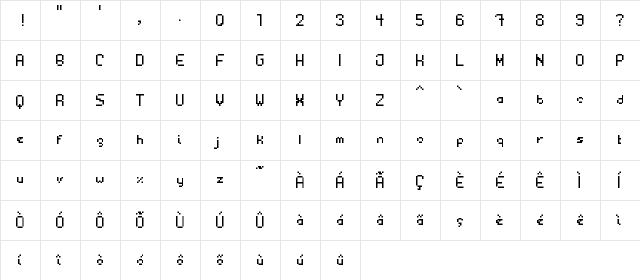
plastica Regular
| Designer | wandolas |
Design Context for plastica Typeface
plastica takes a measured approach to typography — its balanced proportions and neutral character make it a reliable workhorse for both digital and print work.